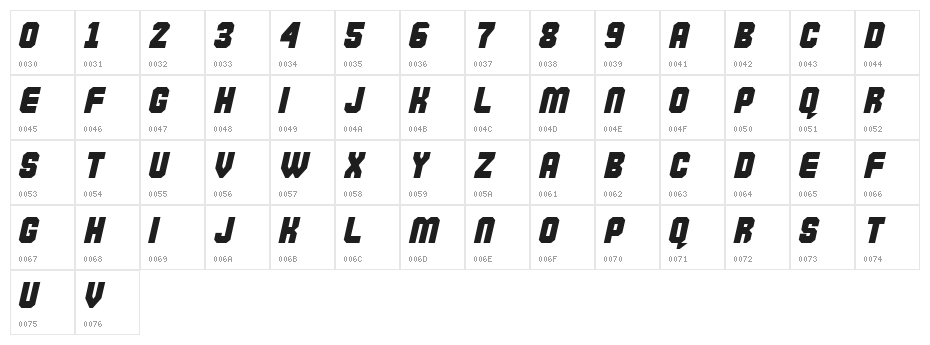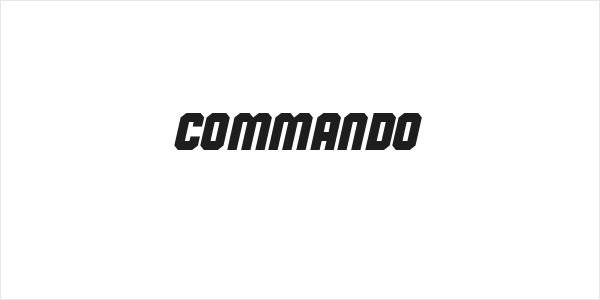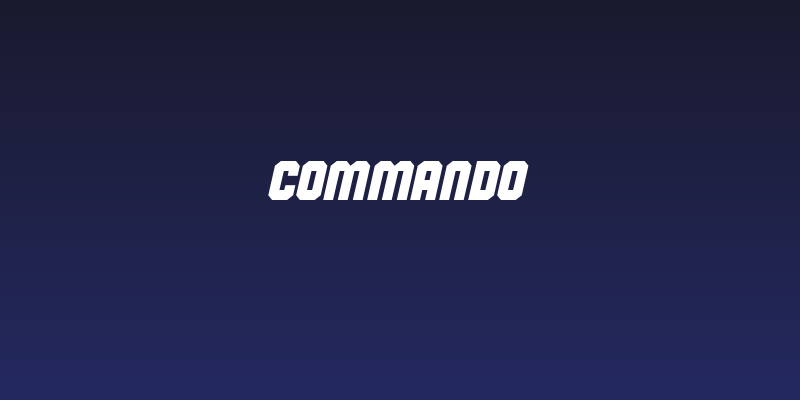
Commando Font
Commando Description
This font features a bold, angular design with a strong, commanding presence. The characters are sharply defined with a geometric style that emphasizes strength and impact. Each letter is crafted with a distinct slant, giving the font a dynamic and forward-moving appearance. The boldness of the strokes is consistent throughout, providing a uniform and cohesive look. The numbers and special characters maintain the same robust style, ensuring versatility across different uses. This font is ideal for projects that require a powerful and assertive visual statement.